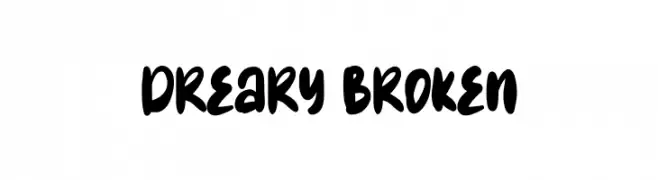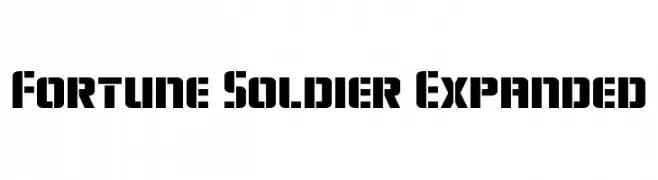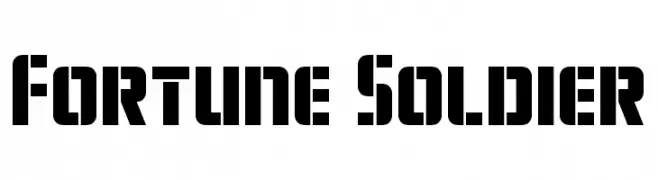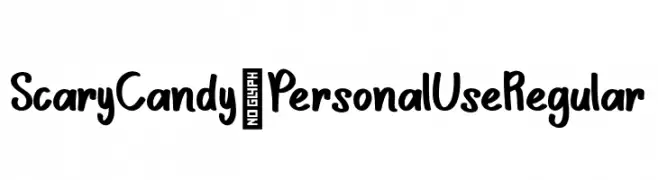
A bold, playful font with exaggerated curves and sharp angles, perfect for eye-catching designs.
A playful, bold handwritten font with dynamic strokes and smooth curves.
A modern, italic sans-serif font with a sleek and dynamic style.
An elegant script font with flowing, cursive letters and ornate details.
A playful, hand-drawn font with bold, rounded characters and a whimsical style.
A bold, playful handwritten font with rounded, thick strokes.
A playful, cursive script font with a romantic and whimsical charm.
A diverse set of horror-inspired decorative display fonts with dramatic and eerie styles.
A bold, geometric font with a military-inspired design and strong, block-like characters.
A bold, stencil-style font with geometric shapes and an industrial feel.